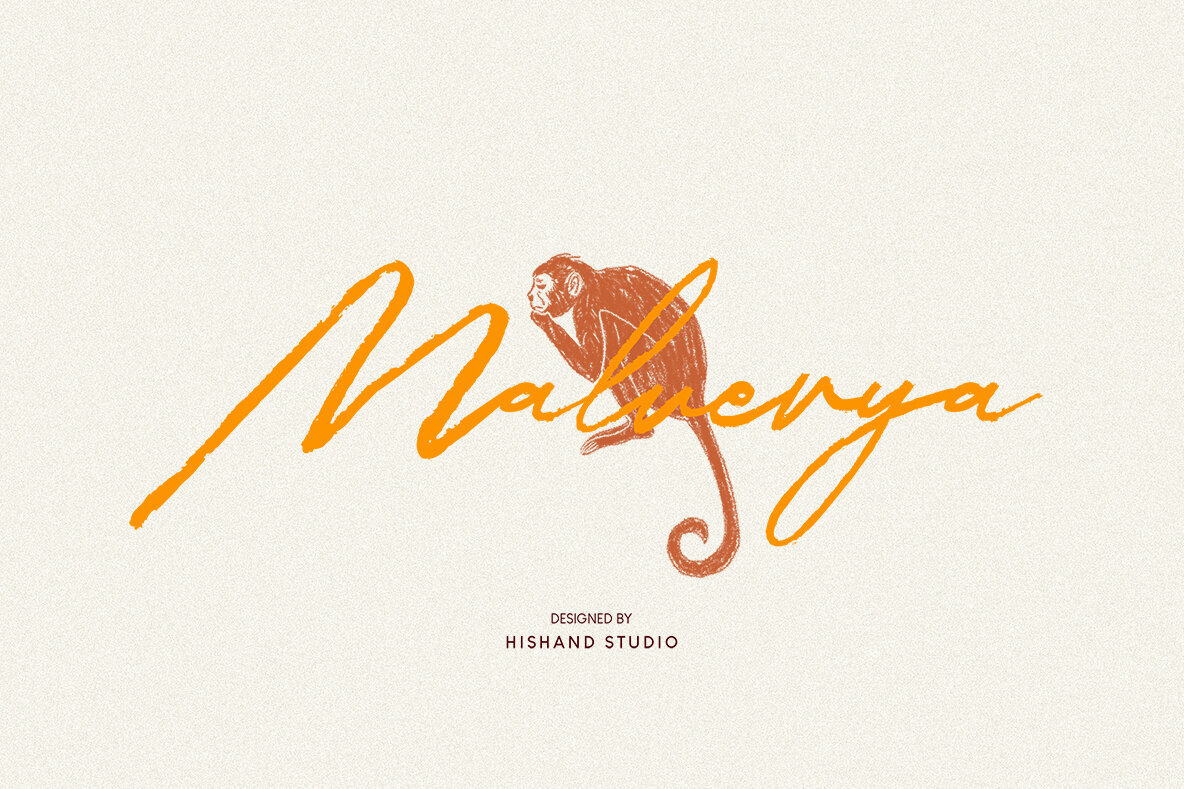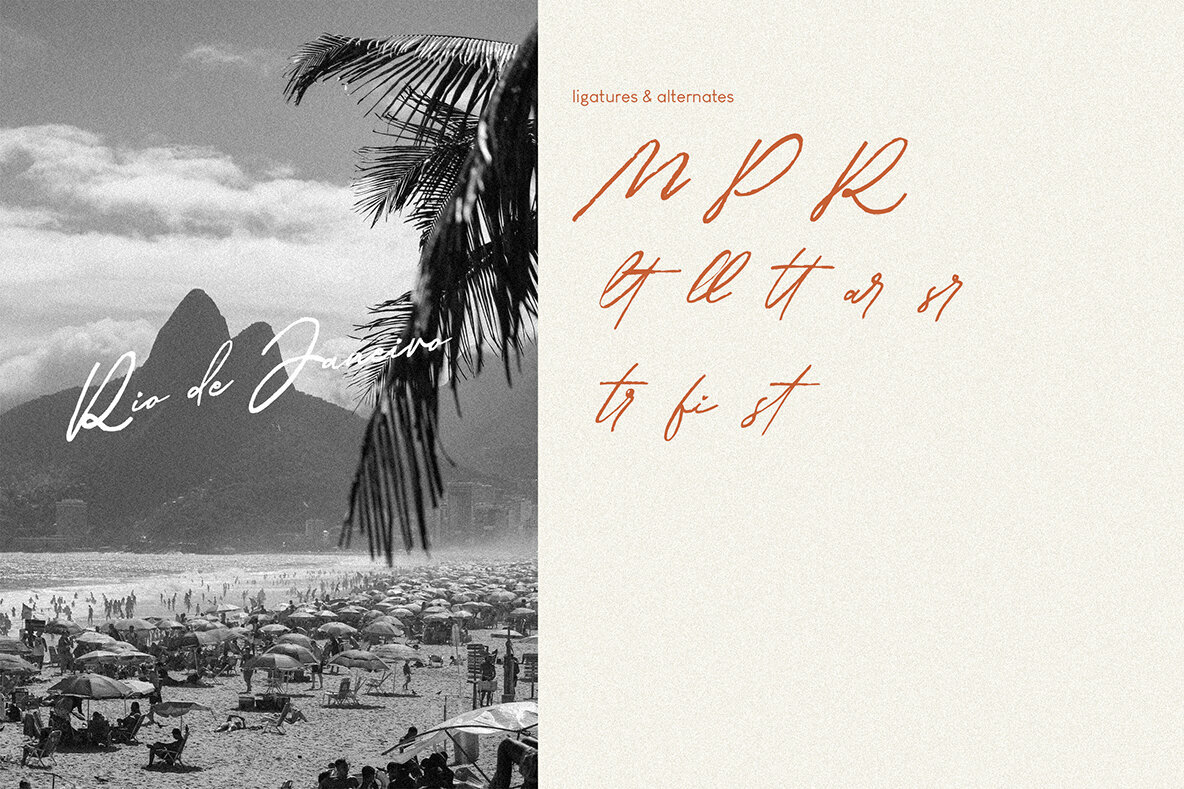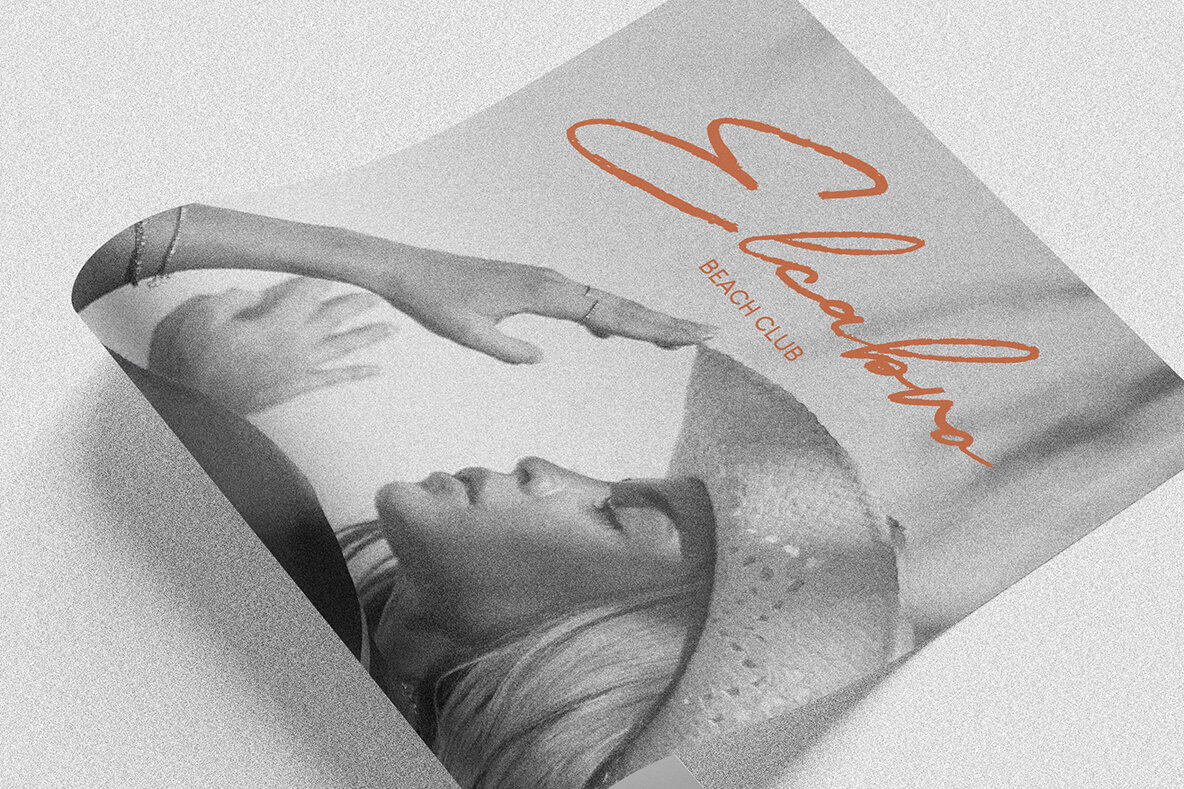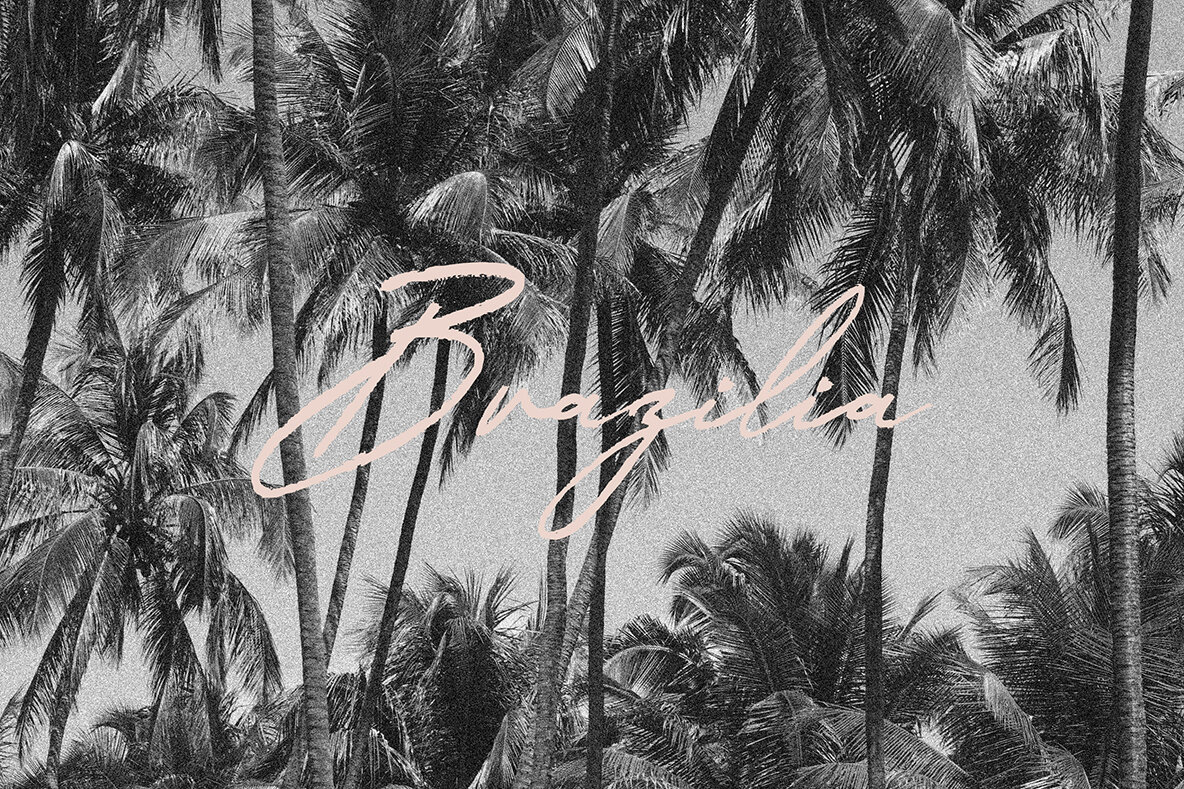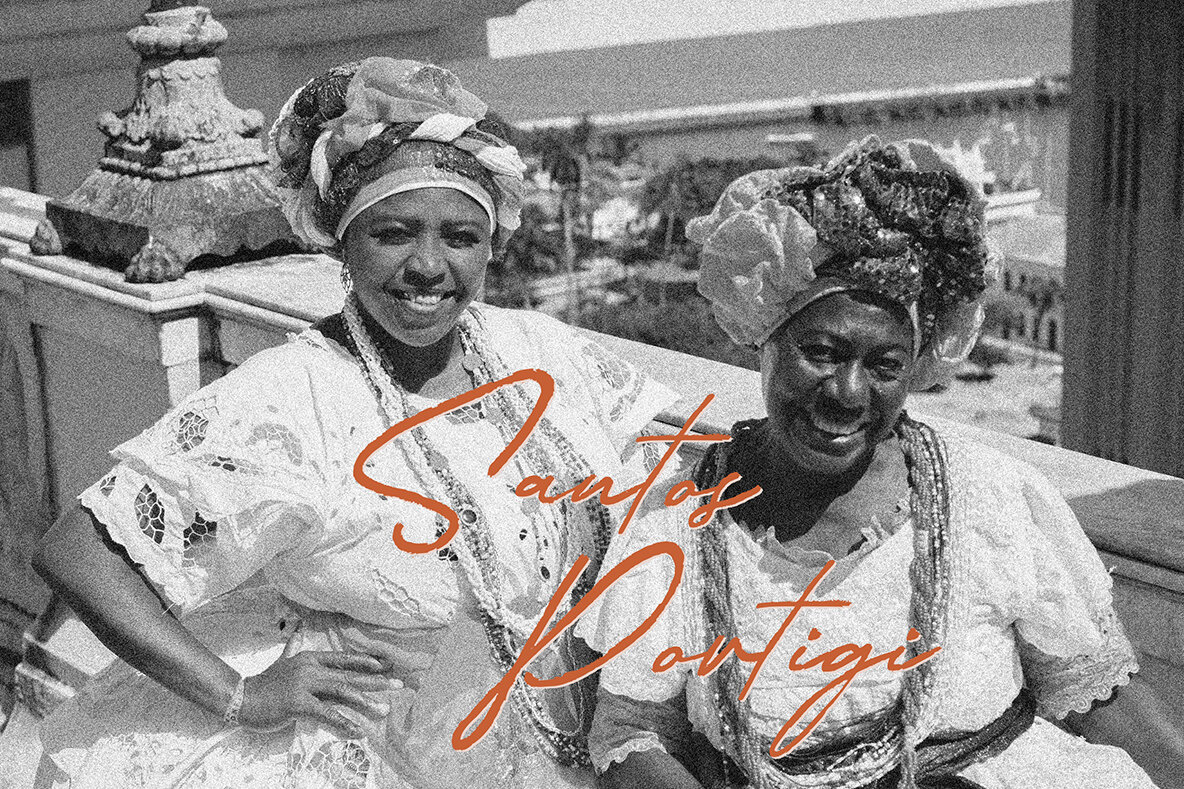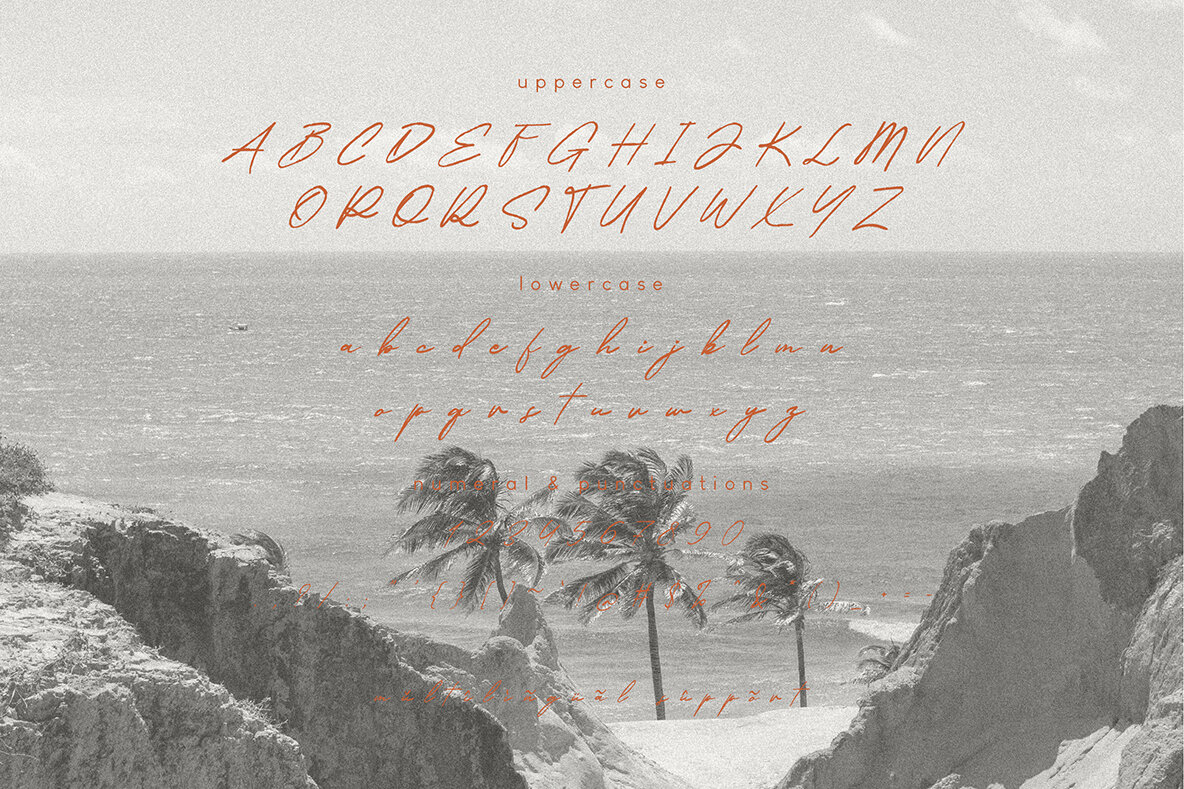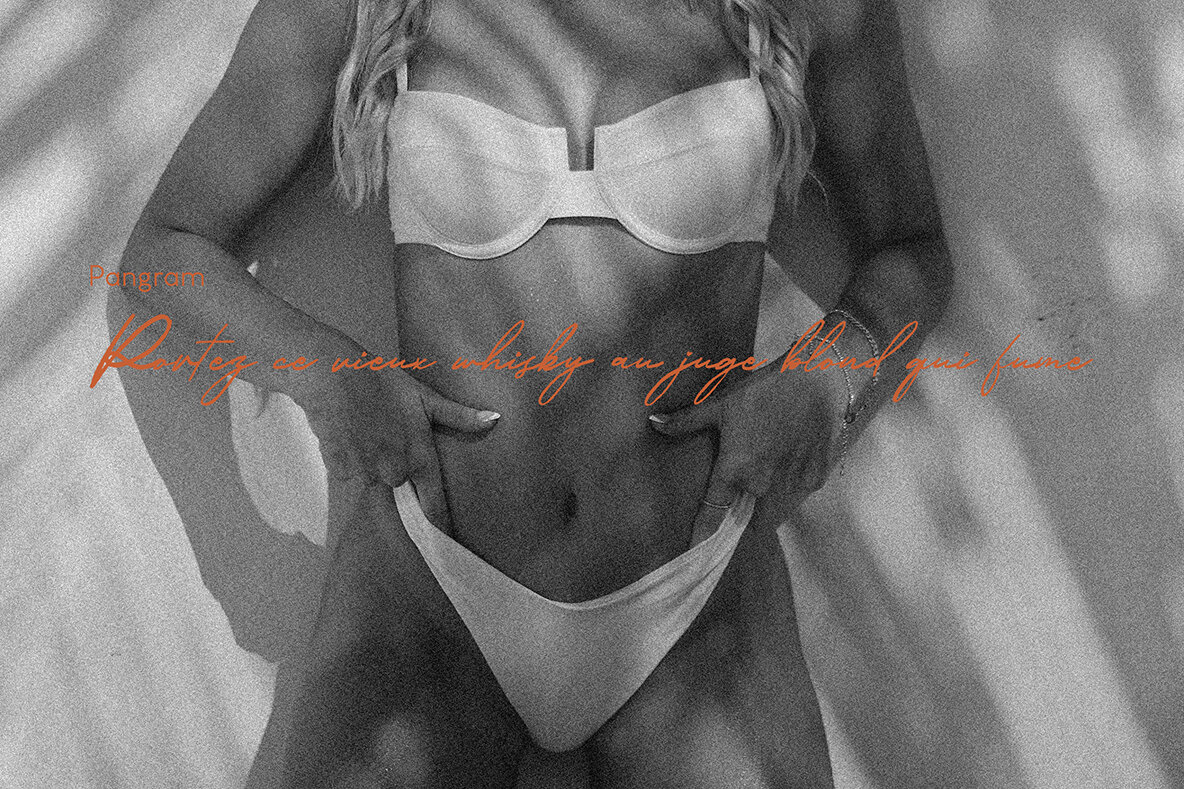
Malverya Font
Malverya
Malverya pairs elegance with a modern, handwritten sensibility. Every letter carries the fluid allure of brushwork, introducing authentic, artistic movement that feels effortless and unique. Distinctive connecting strokes and subtle irregularities in form add character, resulting in a script that balances graceful sophistication with a warm, personal touch. This font suits projects where handcrafted authenticity and understated luxury are priorities. It's ideal for branding, logos, wedding invitations, and greeting cards—anywhere you want your message to feel both refined and inviting. The slight variations in thickness and organic imperfections give designs a sincere, approachable quality without sacrificing style.Malverya Script Font: Elegant Handwritten Style